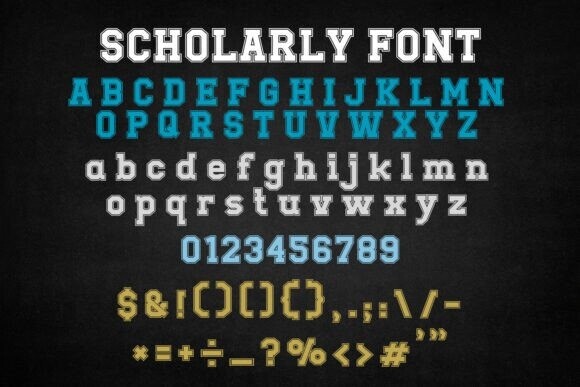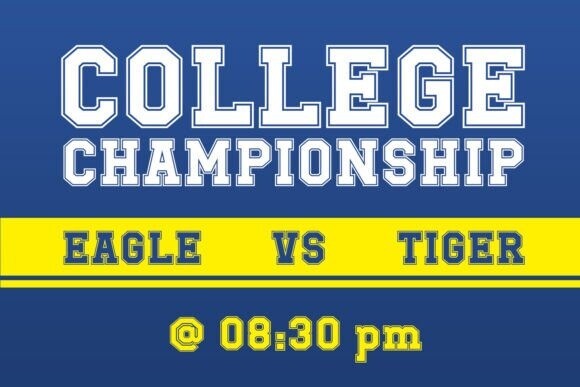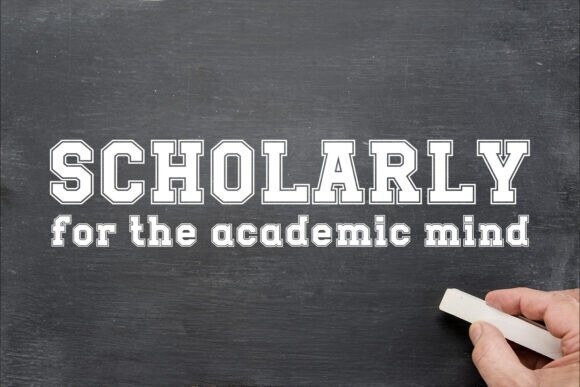
Scholarly Font
Designer: OWPictures
Scholarly Font: A classic, elegant font perfect for academic papers, books, presentations, and more. Its timeless design and clean lines enhance readability and professionalism. Ideal for creating a sophisticated and authoritative look for your projects. Download Scholarly today and elevate your written work.